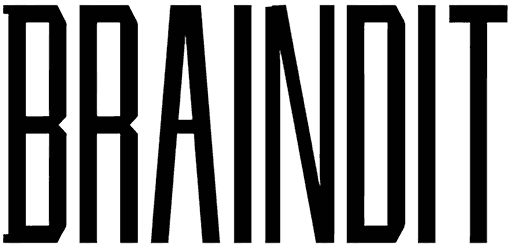
Braindit Font
Turn your words into a minimalist and modern design by using Braindit inspired by sans serif font style in the company of two different uppercase letters that can give a satisfying variety to your title design.
However, it leaves out lowercase letters. Be sure that it puts the utmost in terms of making a great statement with its super-futuristic look in many posters, magazines, branding, etc. Give it a try and visit our website catalog, which hosts several better sans serif fonts.